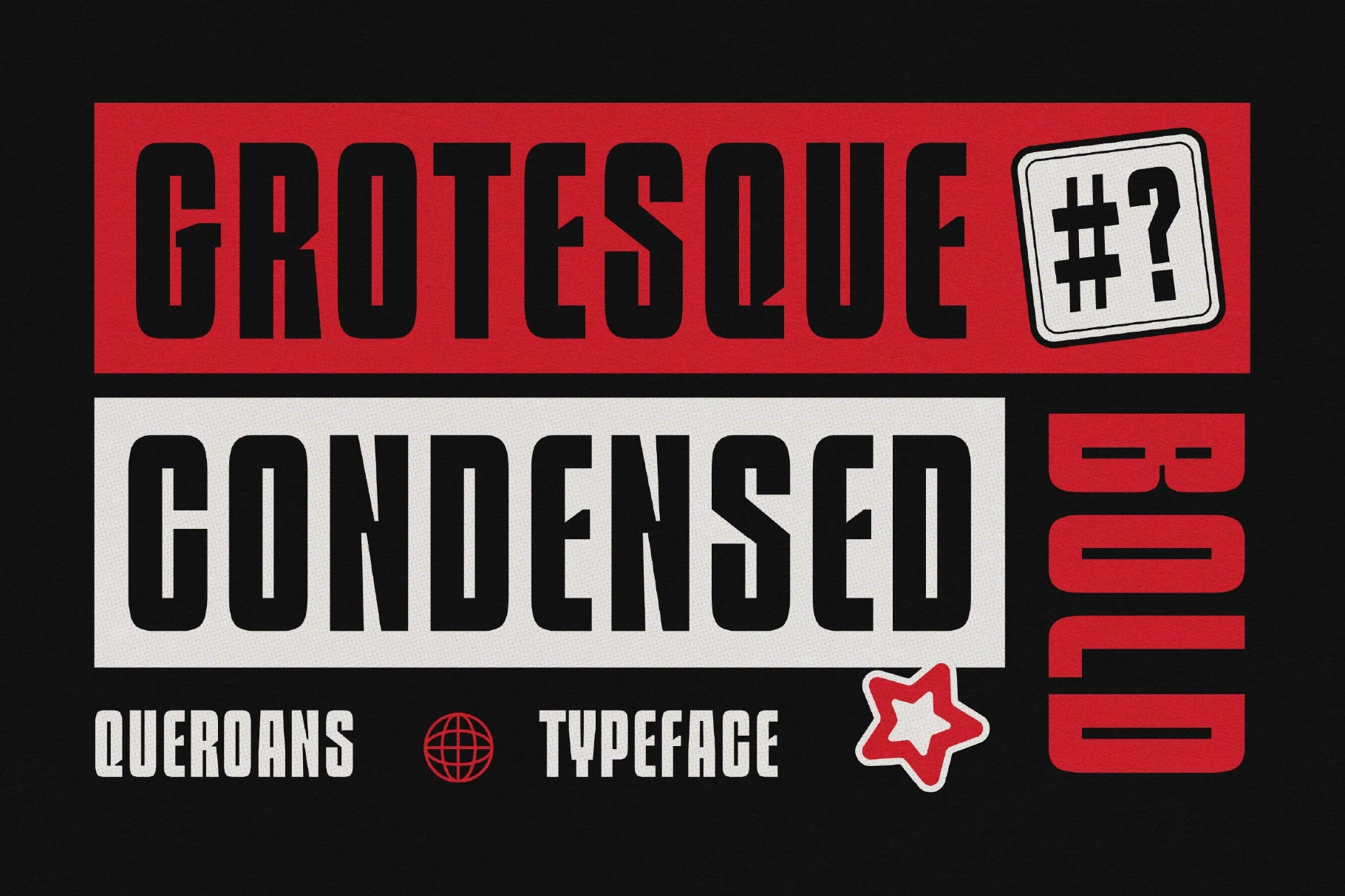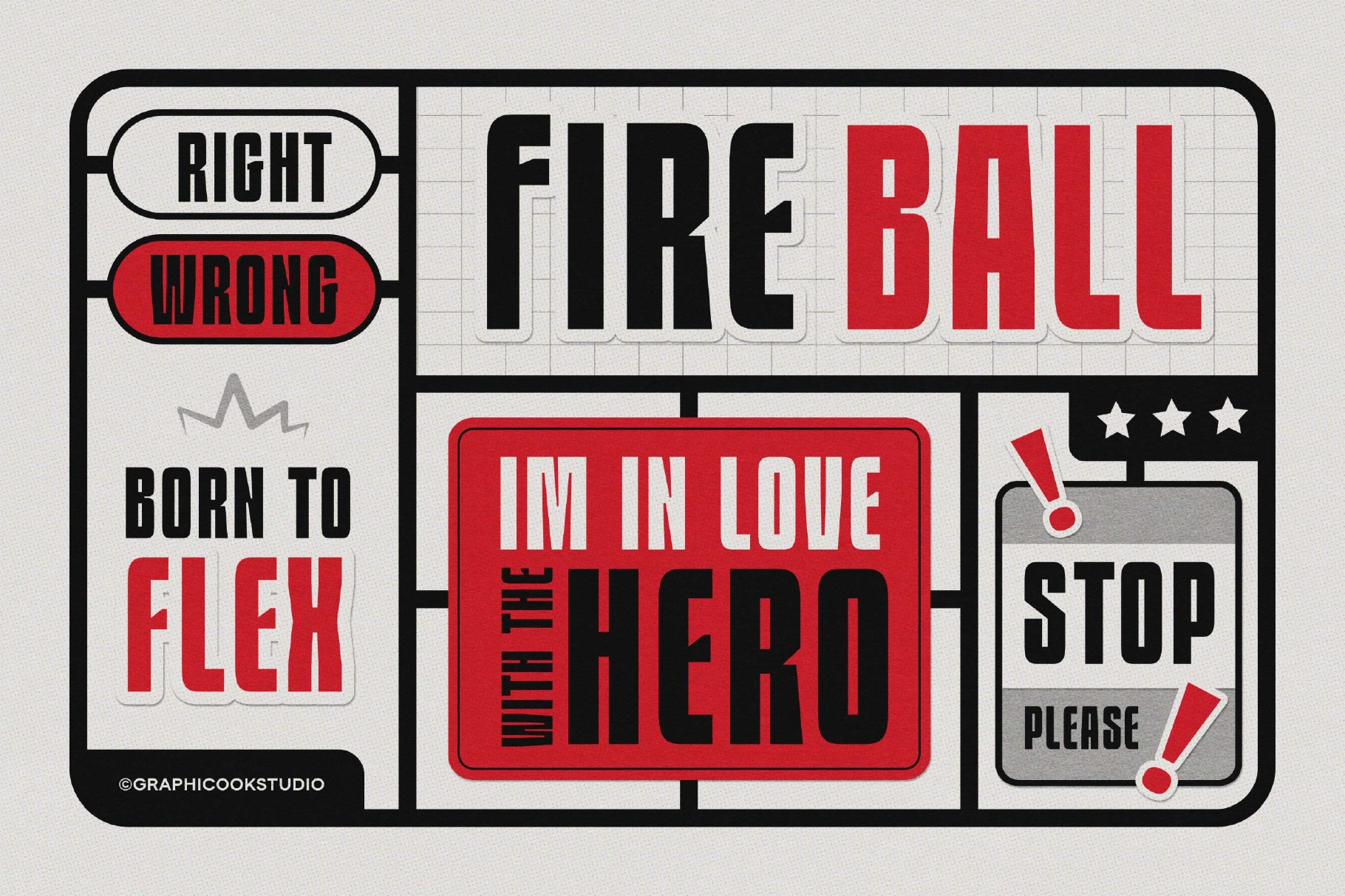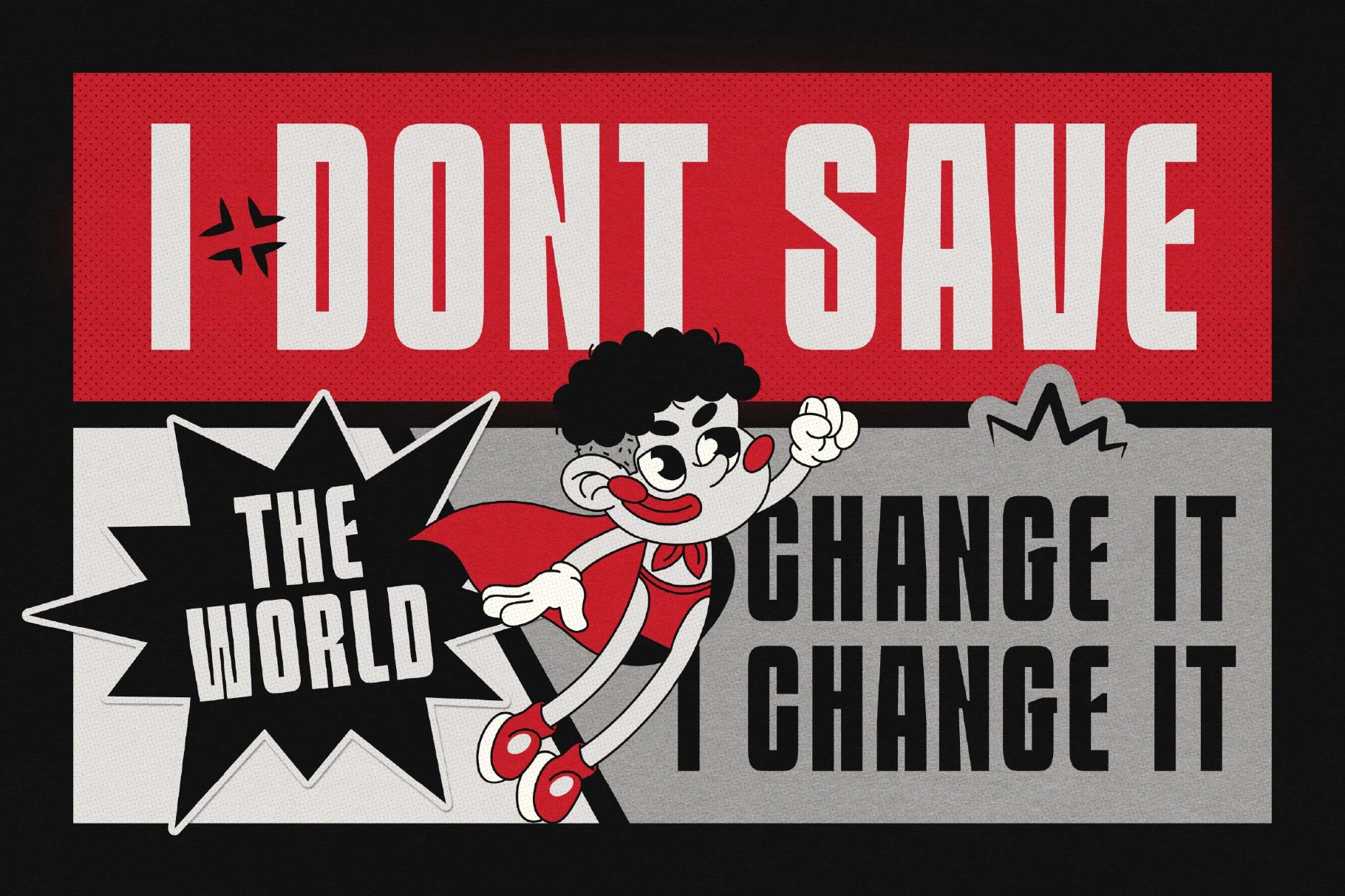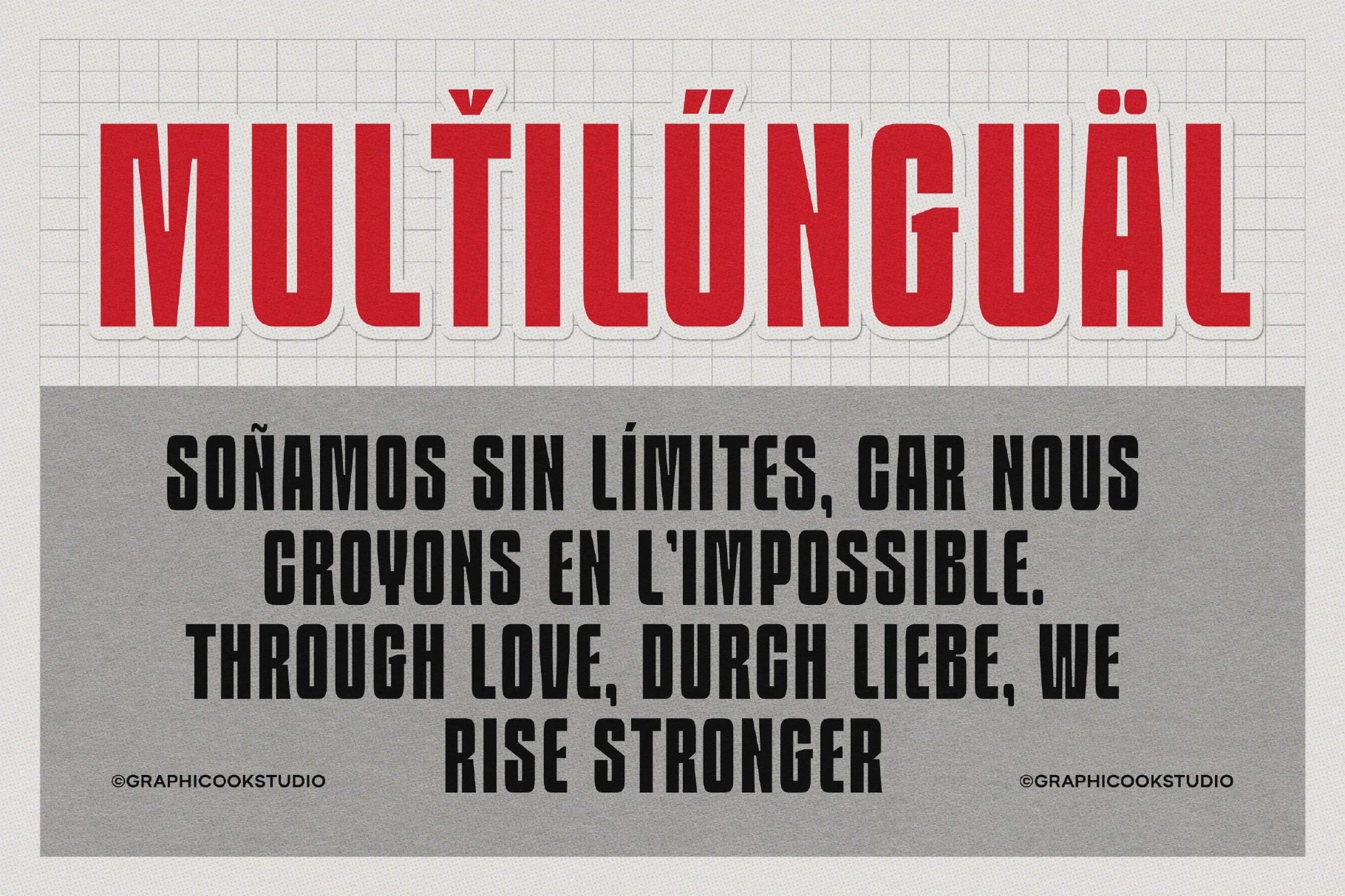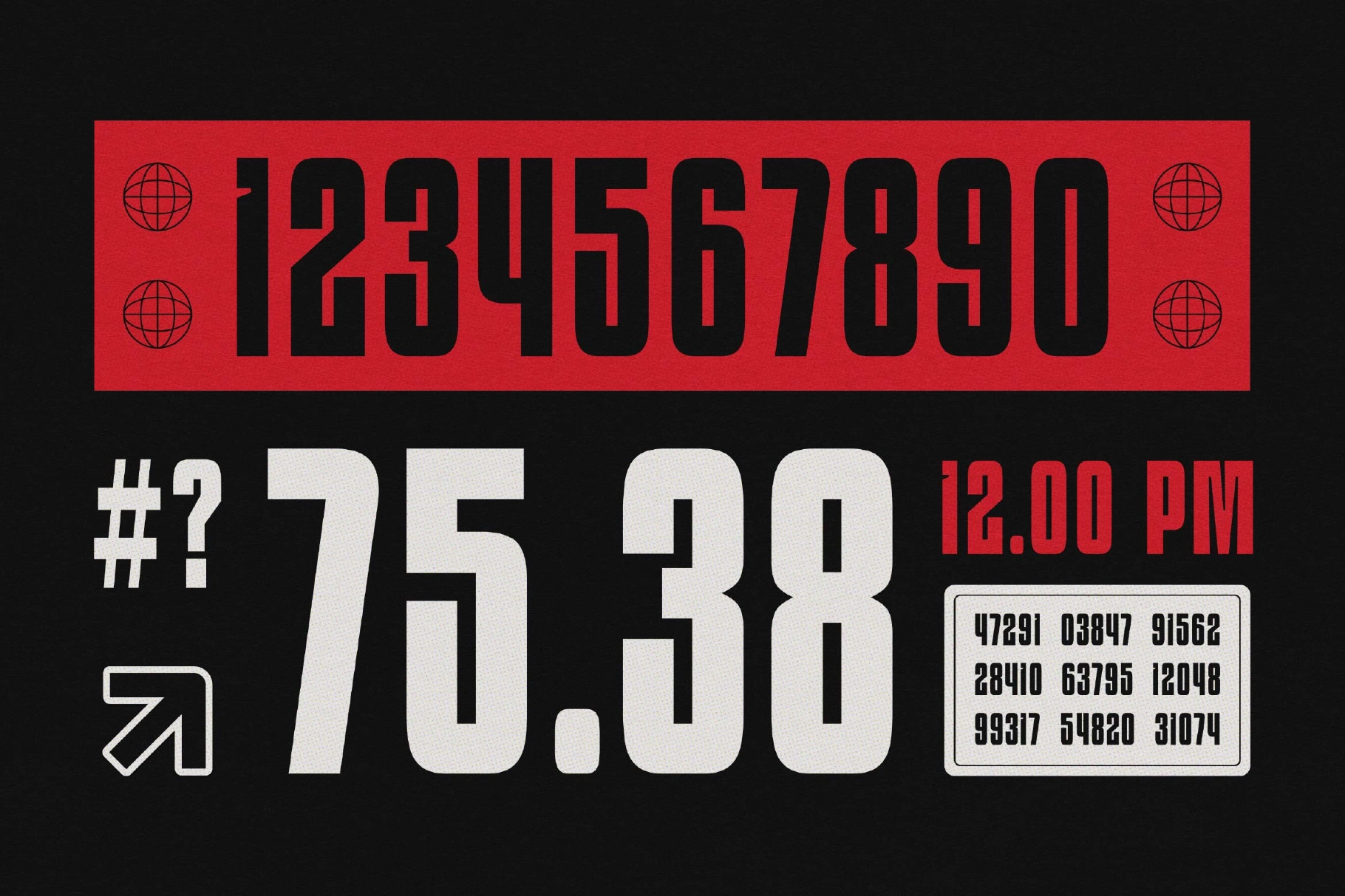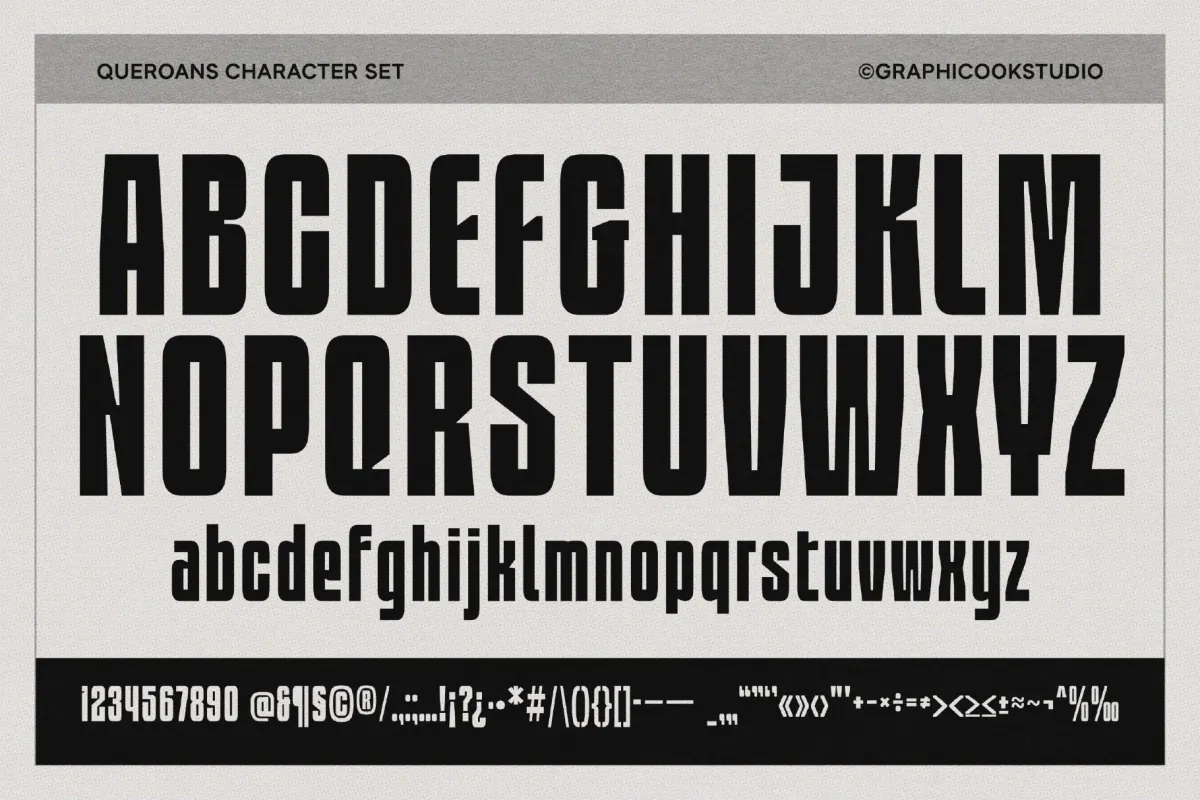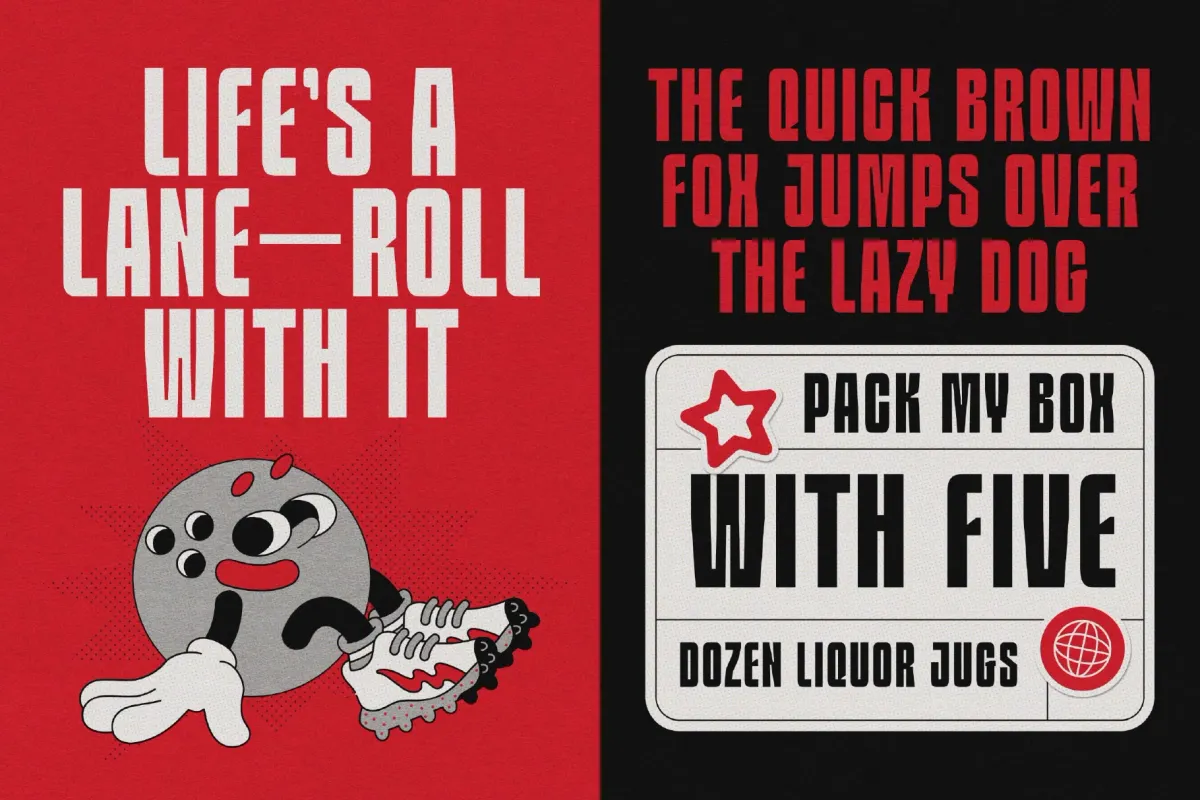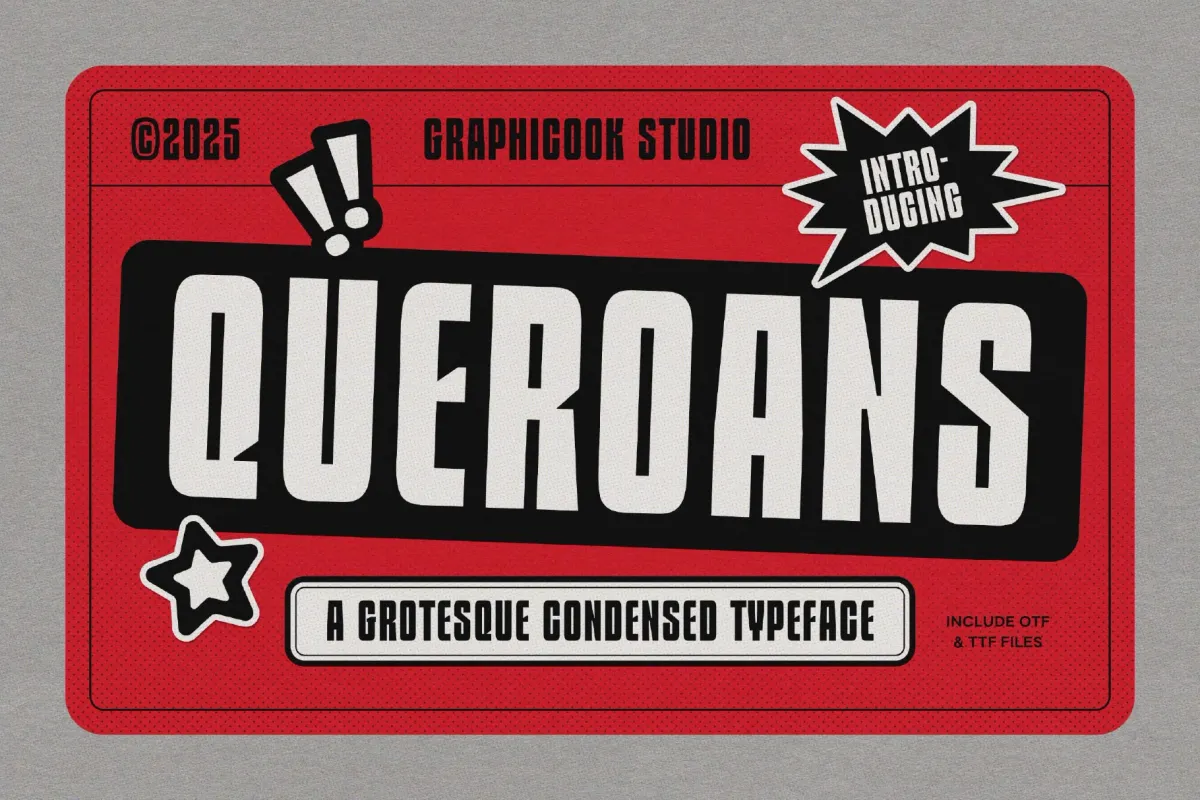
Queroans Font
Queroans is a sans-serif font with a condensed, bold structure, exuding a masculine and striking presence. Suitable for headlines, logos, and bold visual statements.